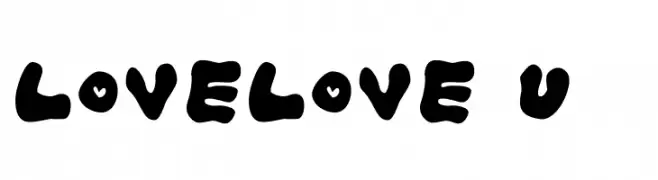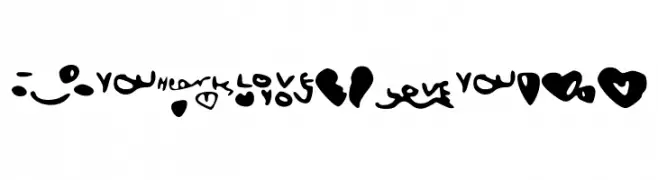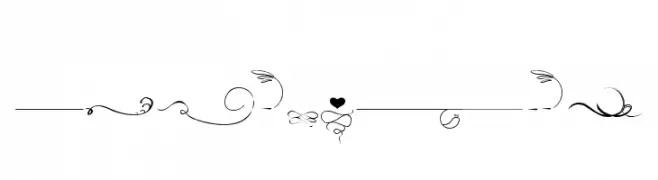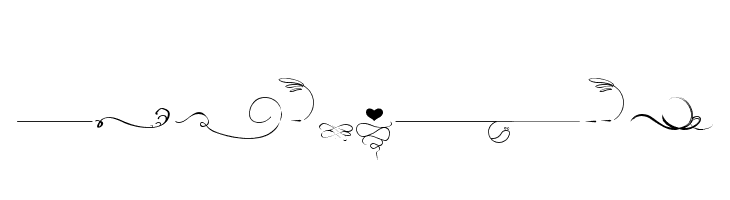
A playful, heart-themed decorative font with bold, rounded outlines.
A playful, heart-adorned decorative font with bold, rounded characters.
A decorative font made of hearts and crosses, perfect for romantic themes.
A whimsical, decorative font with playful swirls and heart motifs.
A playful, heart-embellished font with a hand-drawn, whimsical style.
Intricate decorative elements with swirls, flourishes, and heart motifs.